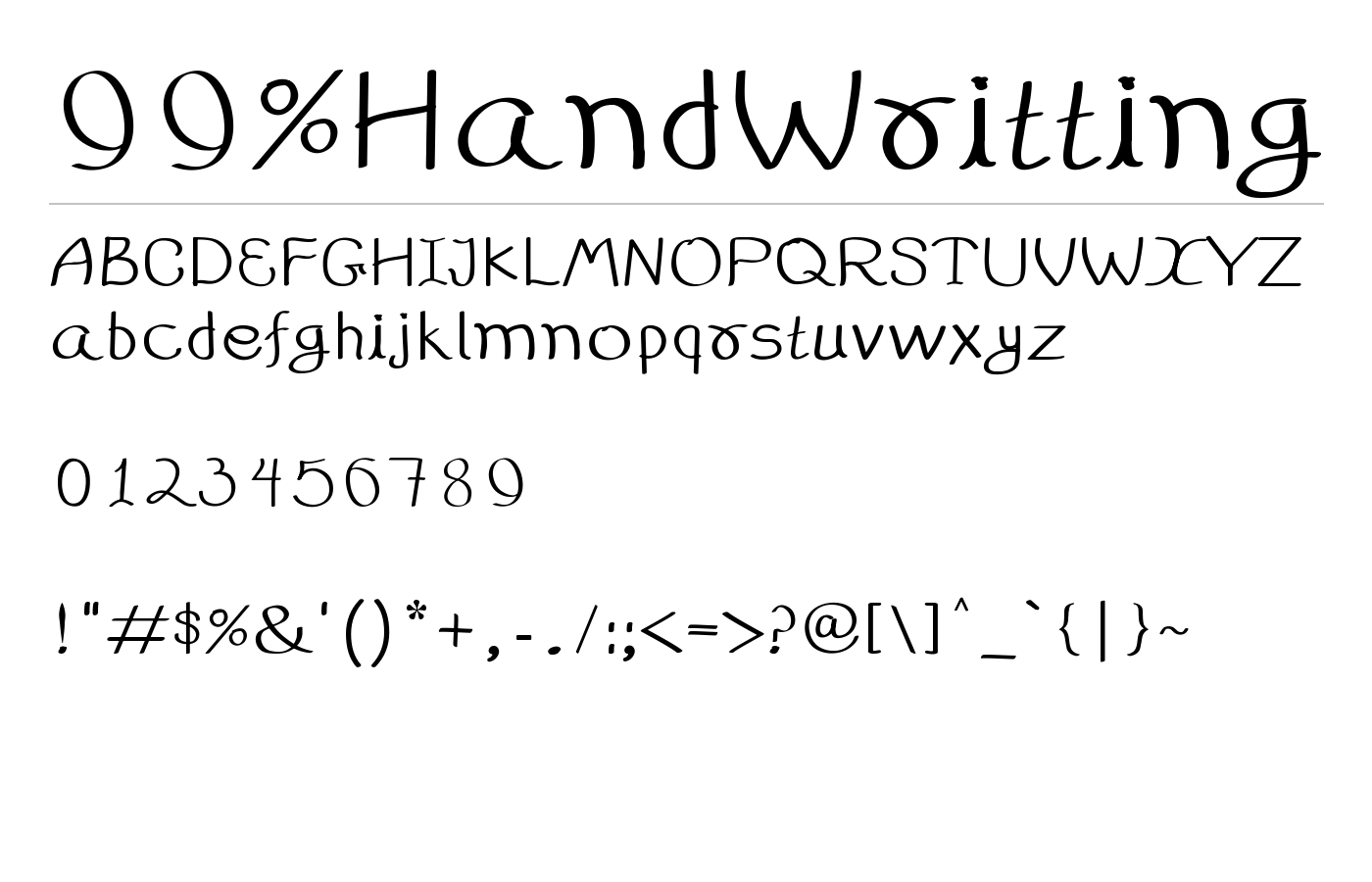
99% Font is a playful, casual handwritten typeface with a light weight and a natural, flowing stroke style that mimics authentic penmanship. Its quirky letterforms, slight irregularities, and moderate x-height give it a friendly and approachable character, making it ideal for creative projects, informal branding, and designs seeking a personal touch. This font works well for headlines, invitations, packaging, and any design that benefits from a warm, human feel.
99% Font
About 99% Font
| Font family | 99% Font |
| Designer | Habib Shaikh |